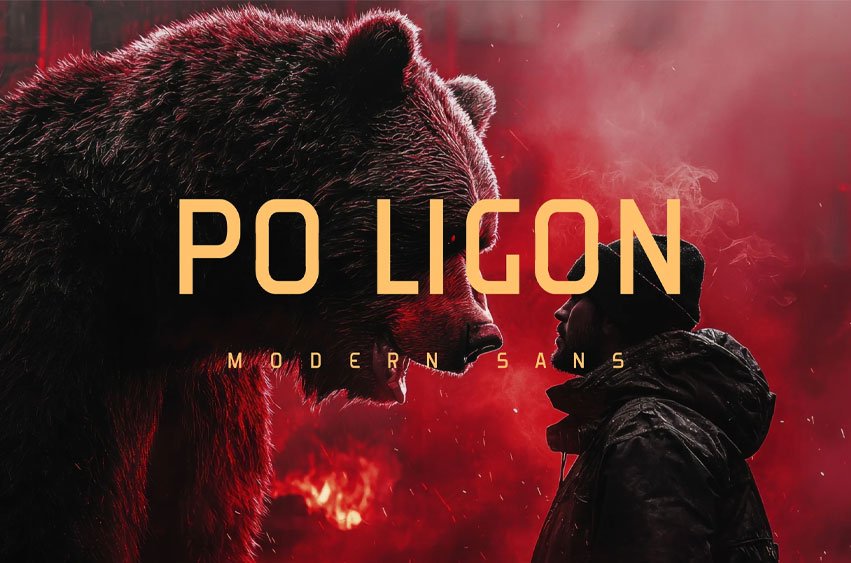
Po Ligon Font is a sleek sans font designed for game environments, carrying the atmosphere of a cinematic universe without ever needing a name.
Its shapes are smooth, modern, and slightly futuristic, like the typography seen in high-budget sci-fi films or immersive open-world games.